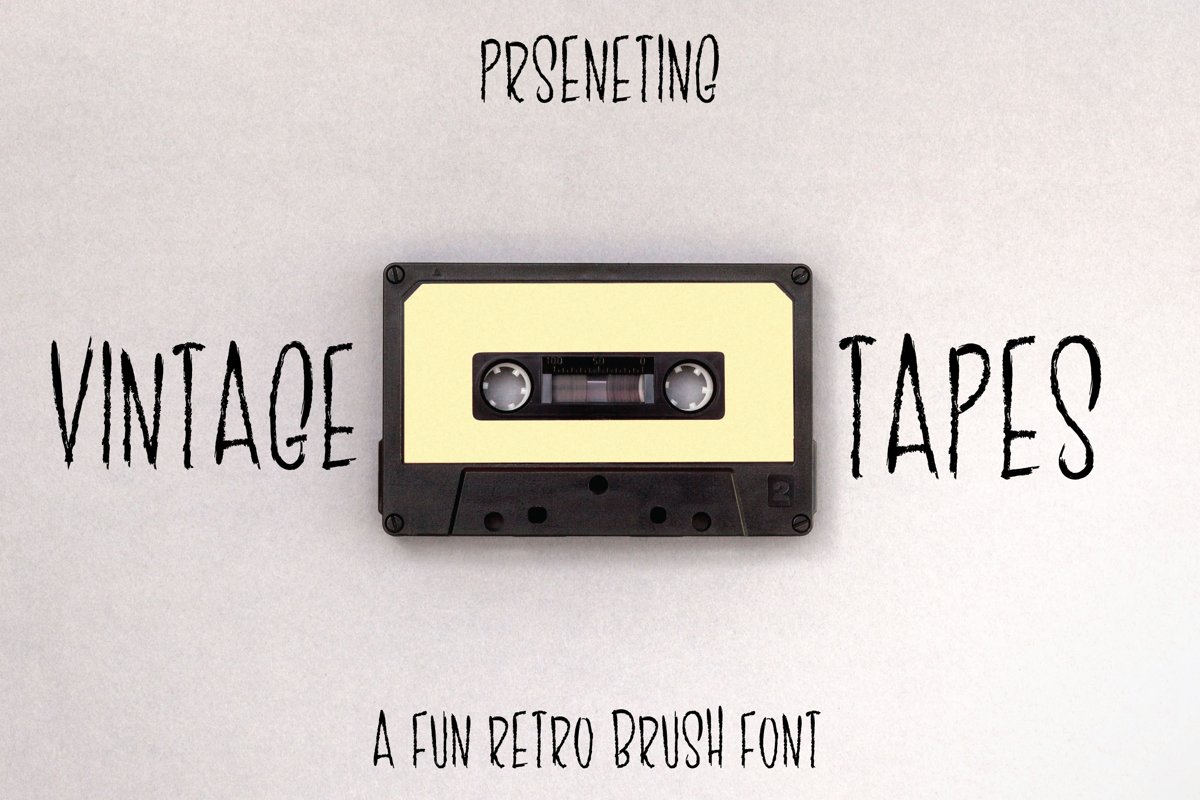
Vintage Tape - Retro Brush Font
a Brush font is ready for you to make amazing Crafted project, retro style designs and creative printing artwork. You can use it to create vinyl and stylish street style artwork that you will be happy to show.
1- Brush hand drawn Upper Case Font